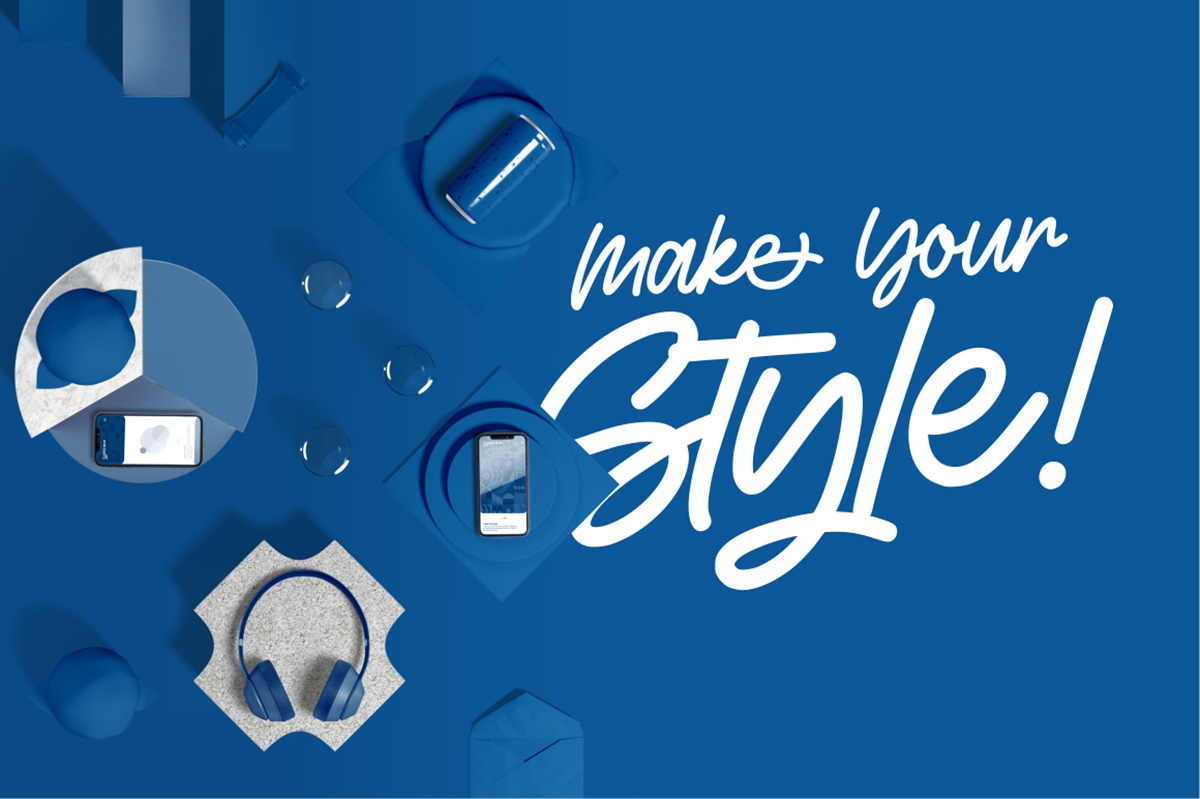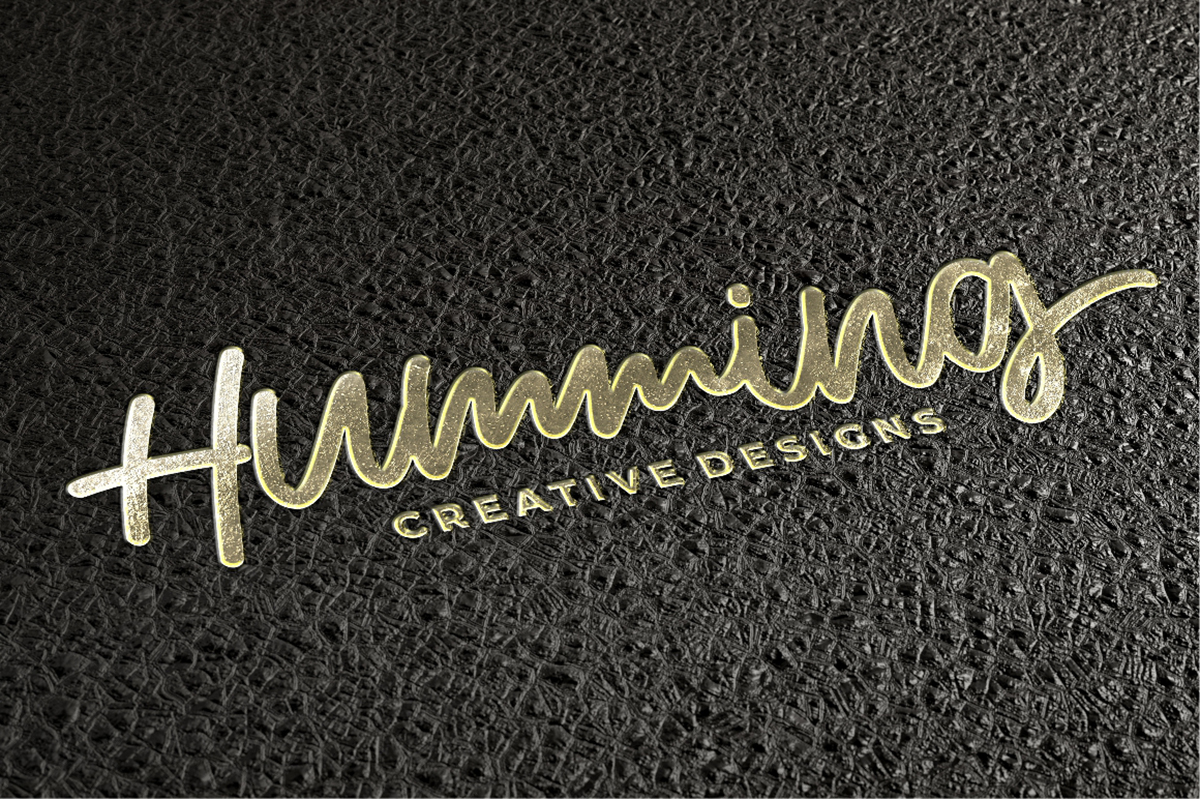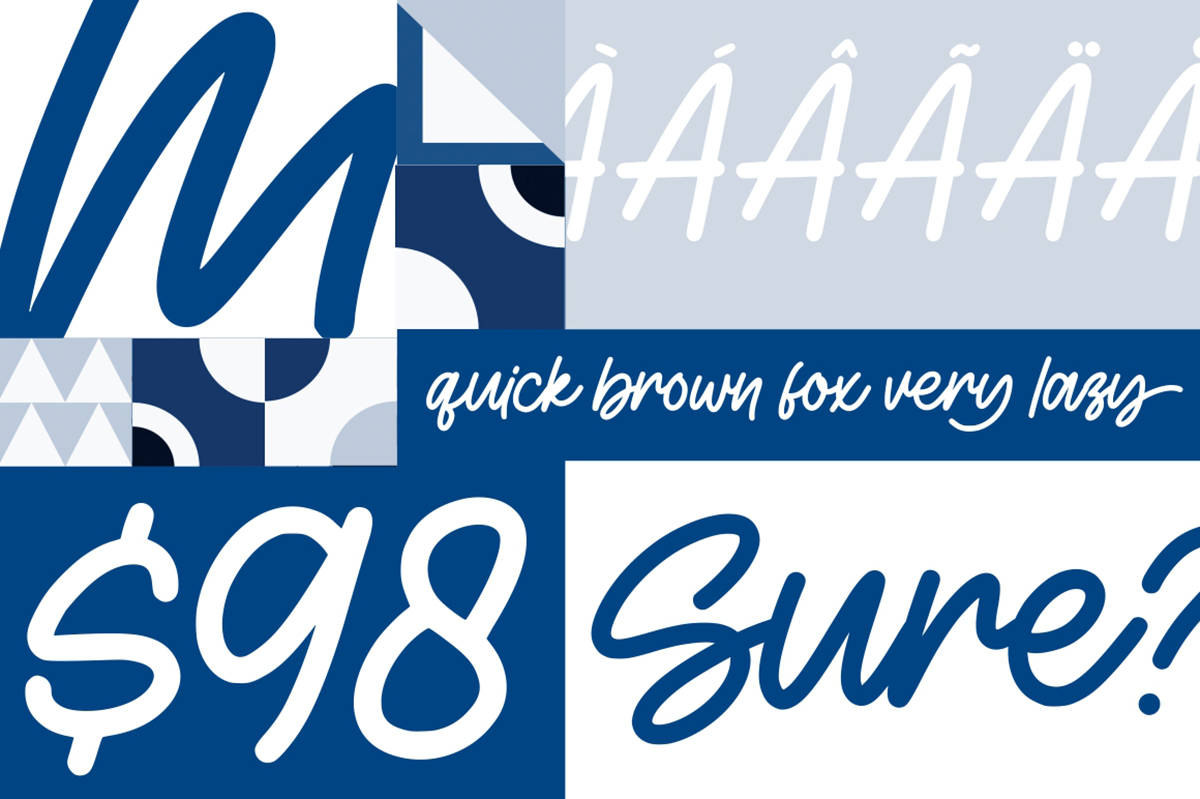
Humming Free Font
Humming Free Font is made a naturally modern script with a fresh modern script; delivering a stylish script which is guaranteed to add an eye-catching appeal to your logo designs, brand imagery, quotes, product packaging, merchandise & social media posts. This free typeface was designed by talented Garisman Studio. If you like it don’t forget to check out the full version.